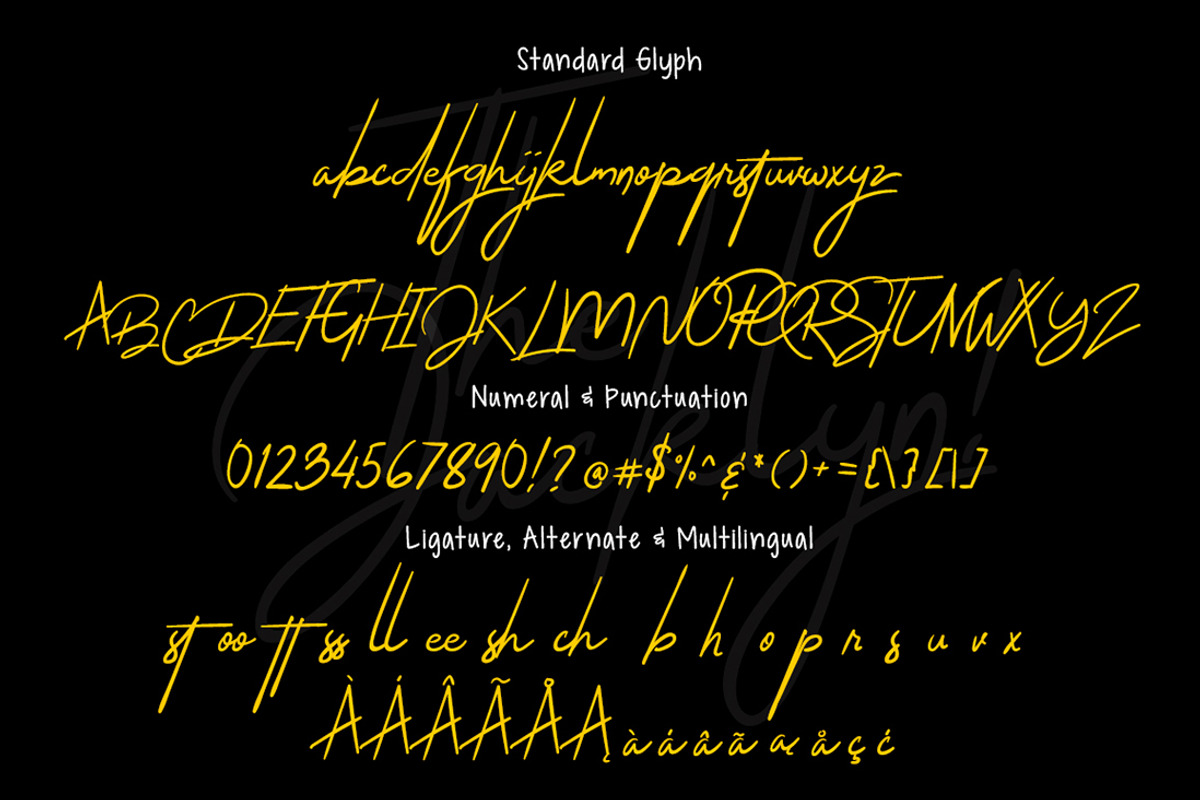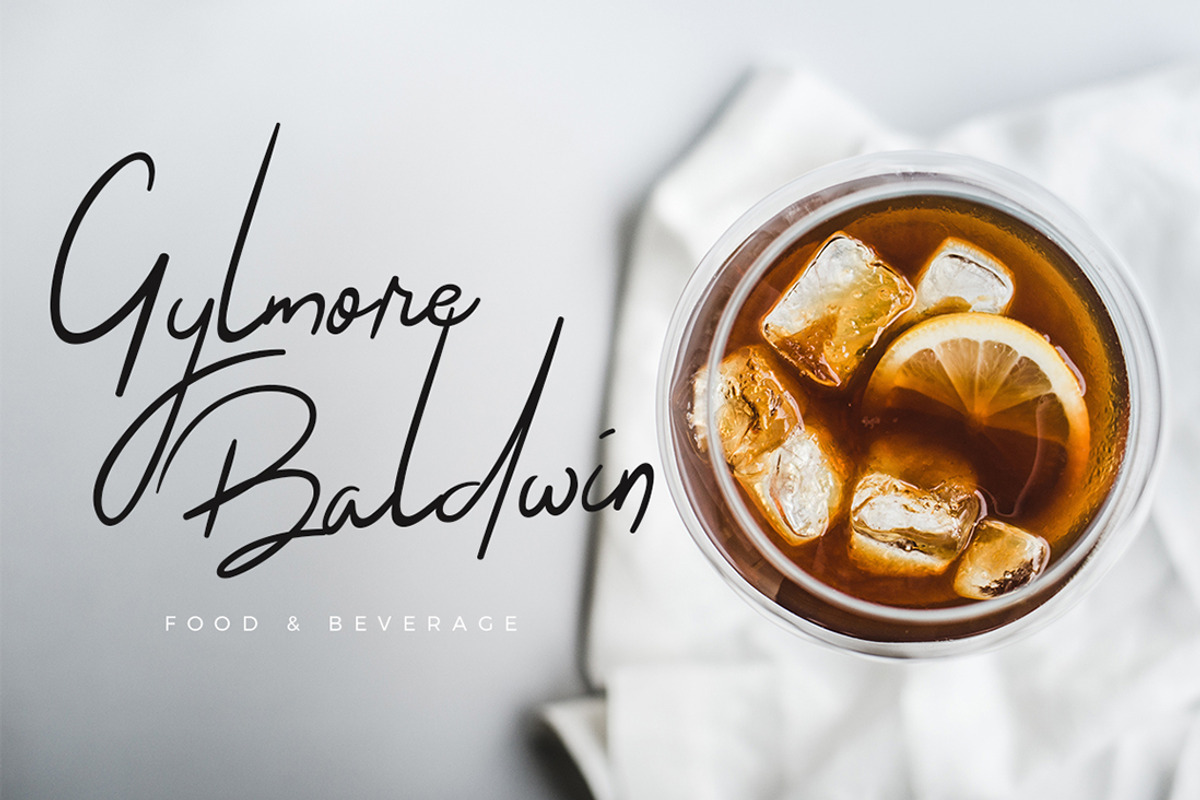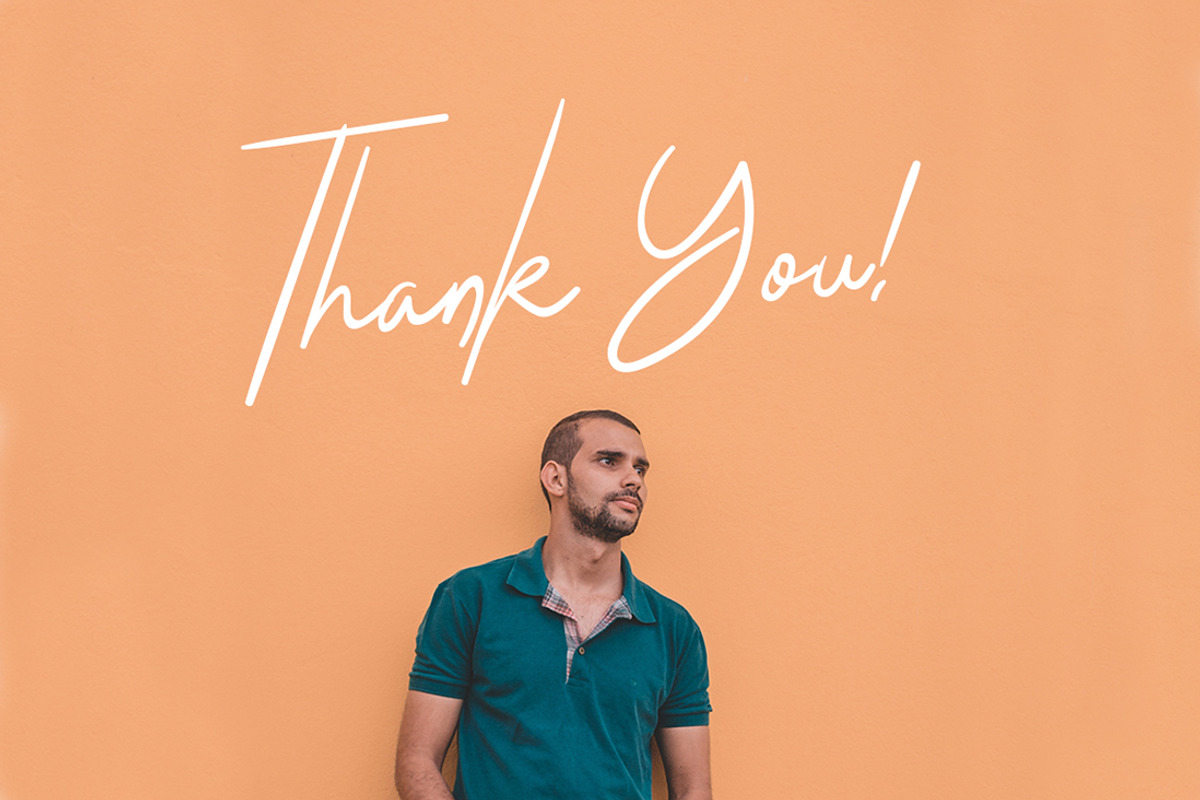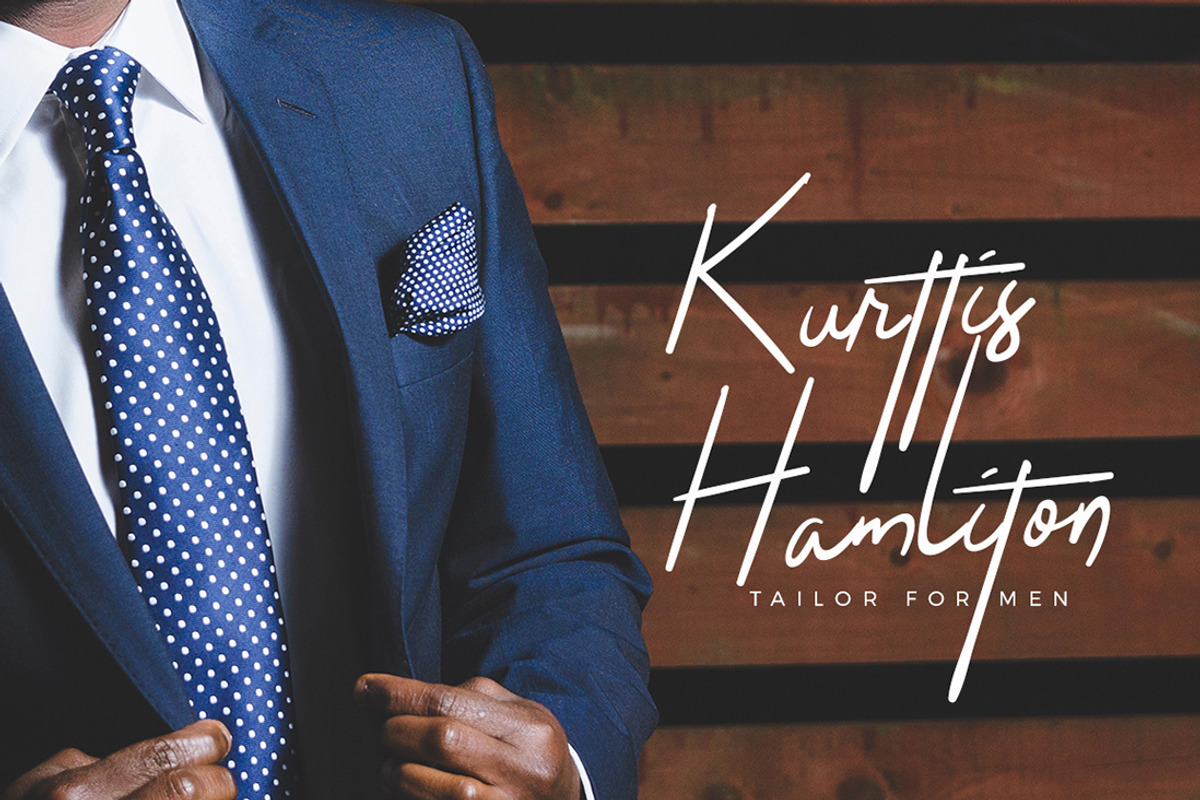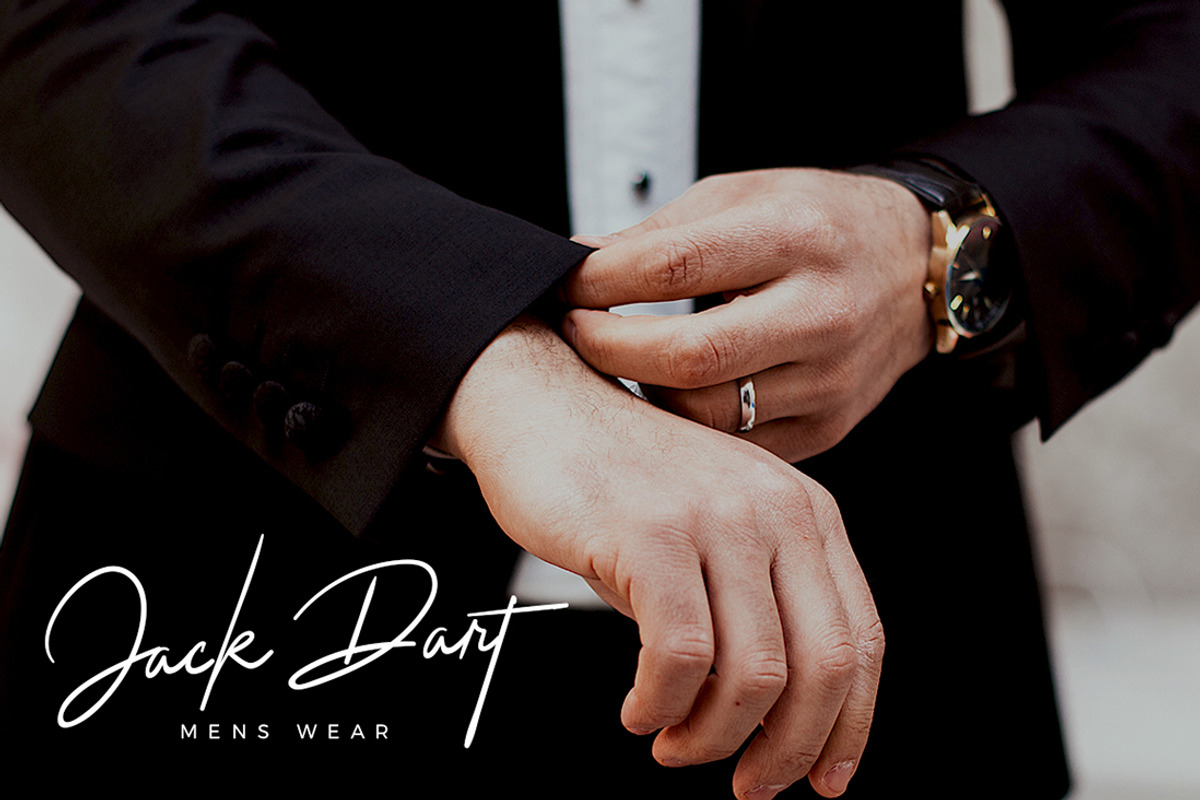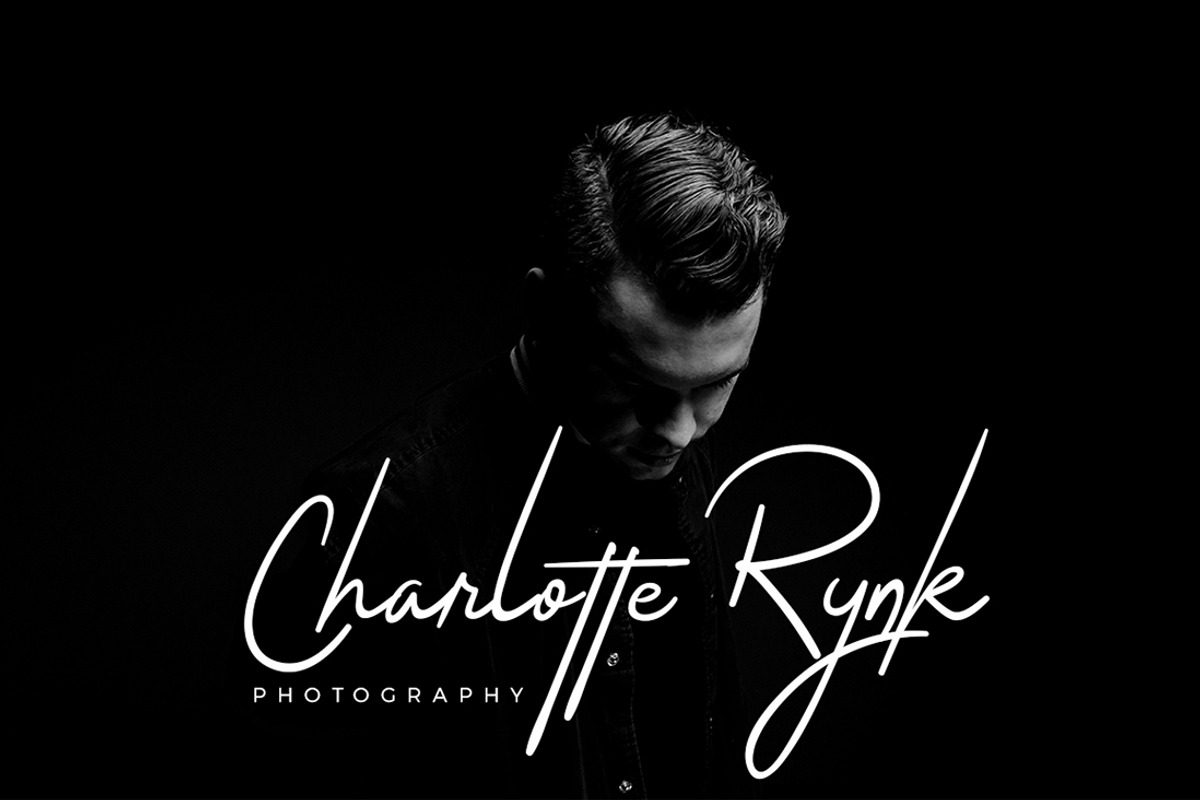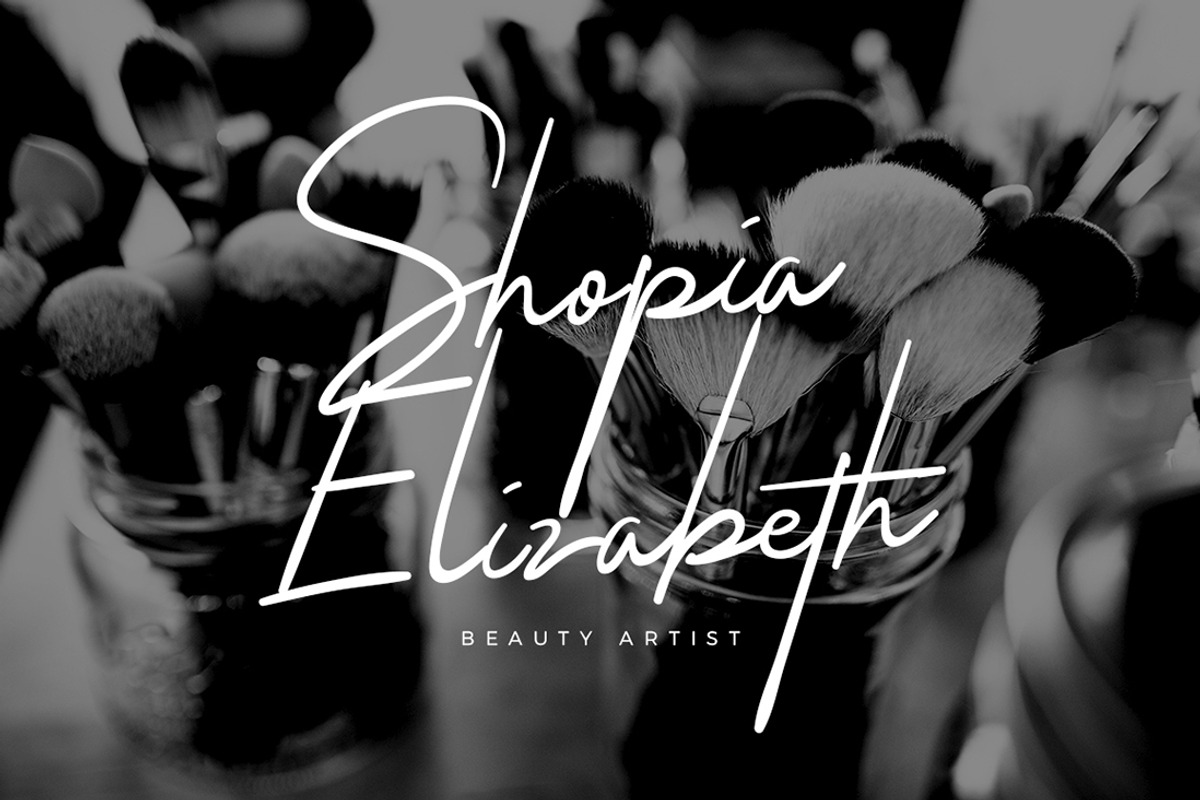
The Jacklyn Signature Business Font
The Jacklyn signature style script is modern and sophisticated styling font which perfect for branding, logo, photography and signature. It is so elegant, classy, strong and beautiful.
- More than 240 of glyphs
- Ligature & Stylistic alternate
- Include Multilingual support
Why The Jacklyn Signature Business Font is worth a look
The Jacklyn Signature Business Font by Creatype Studio fits naturally into Branding, posters, packaging, typography.